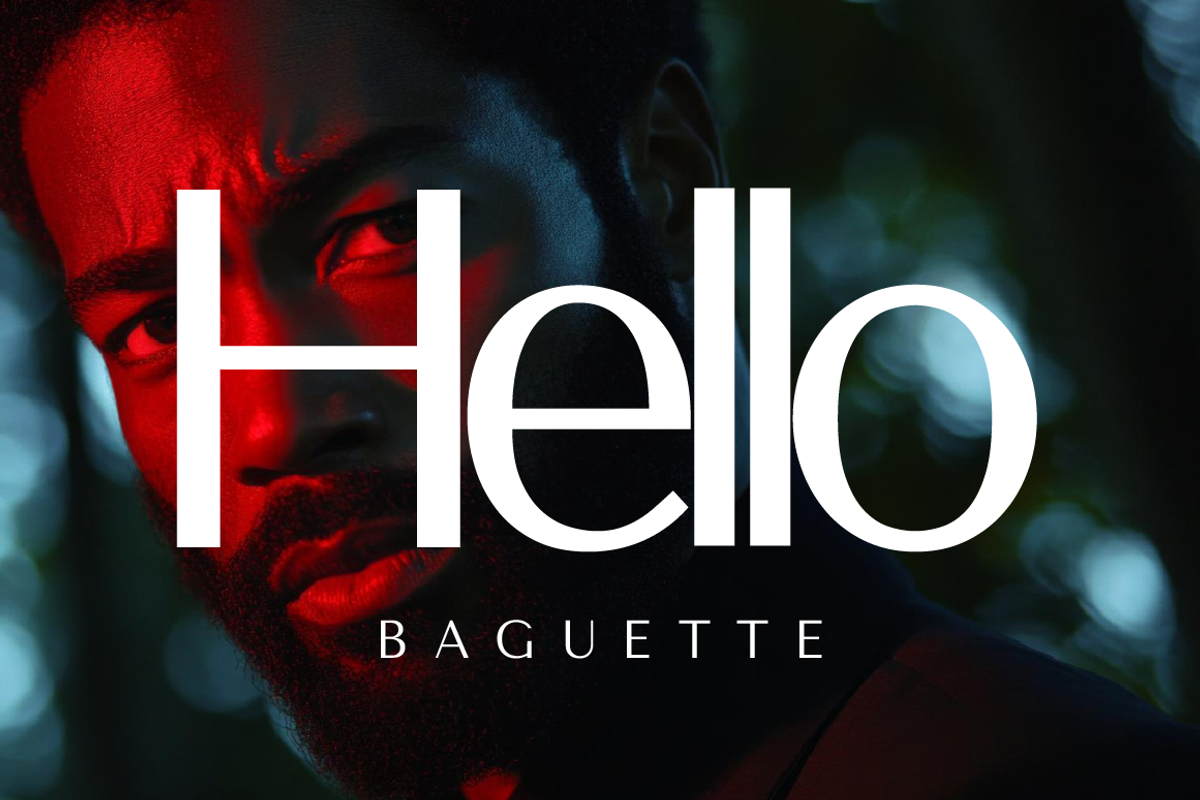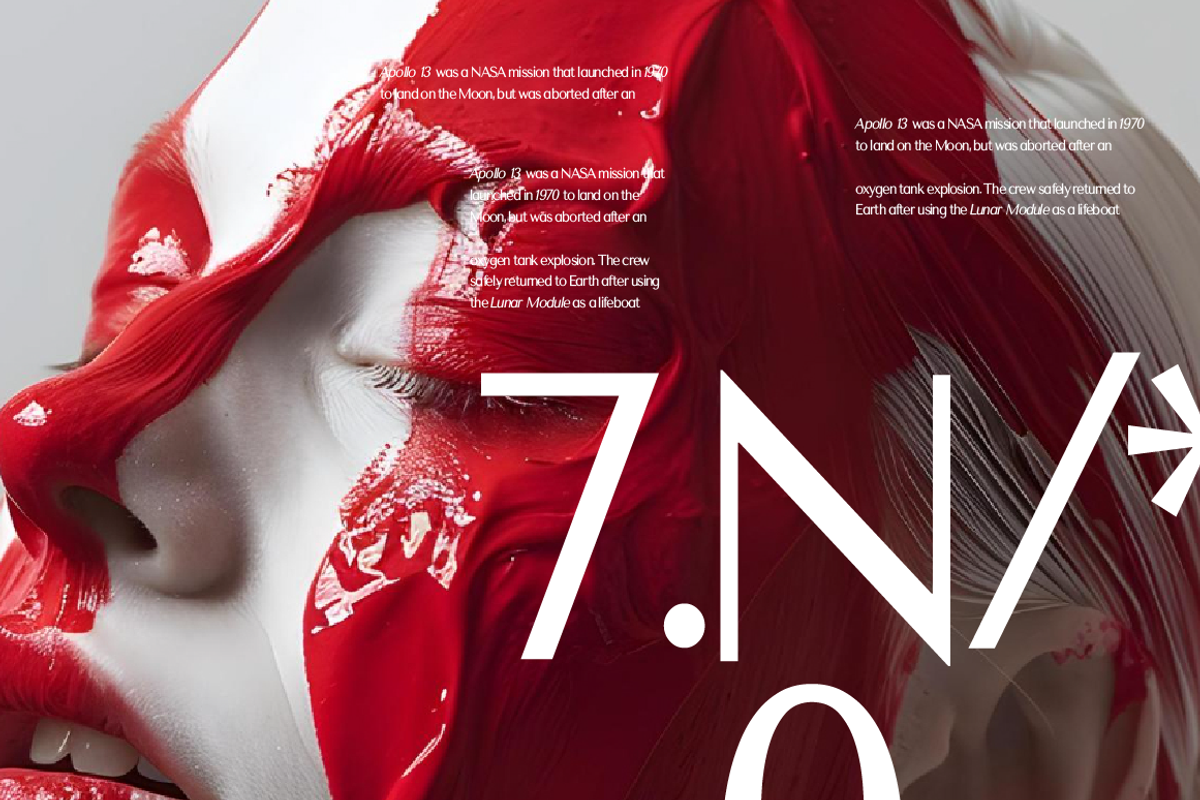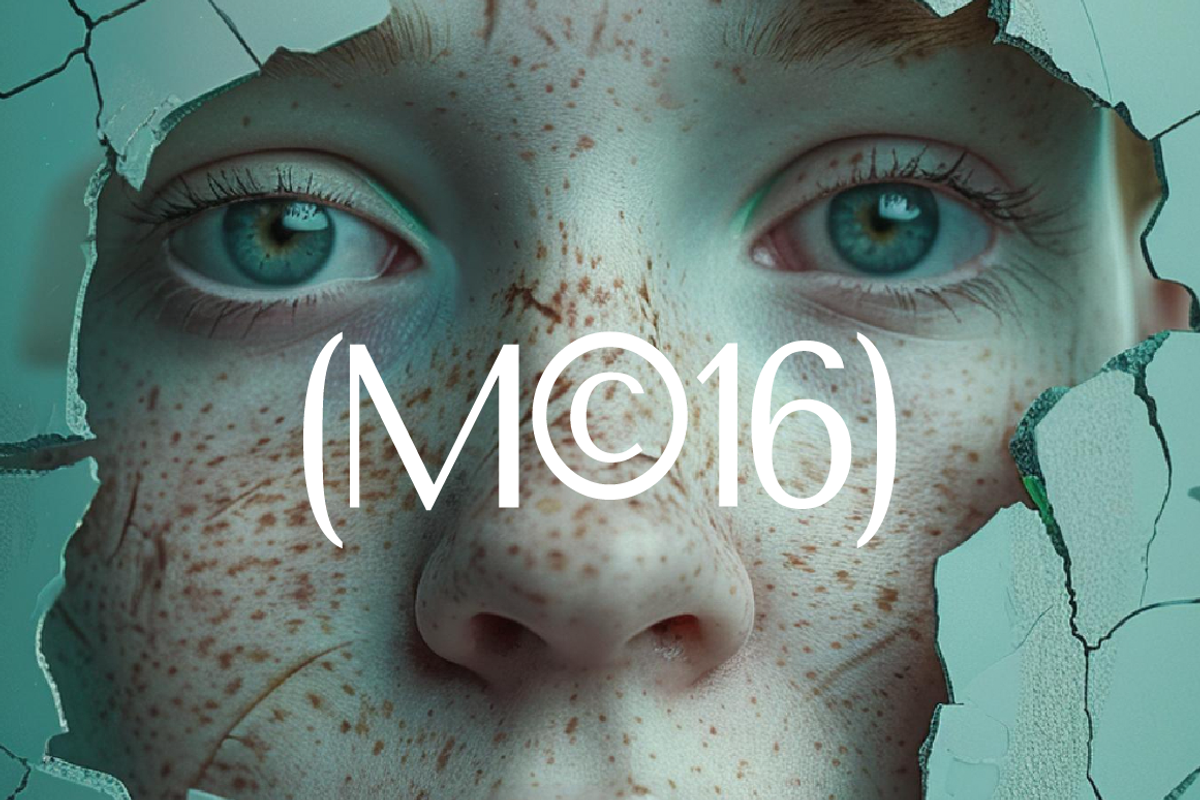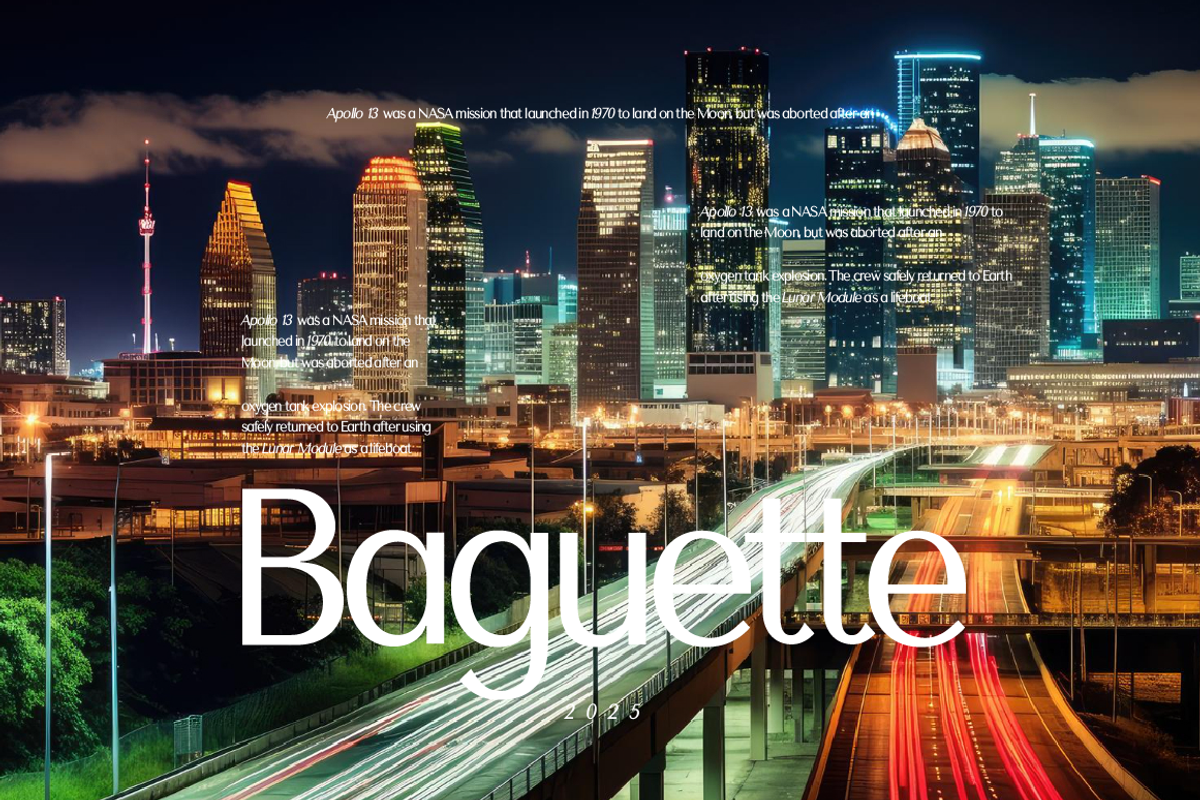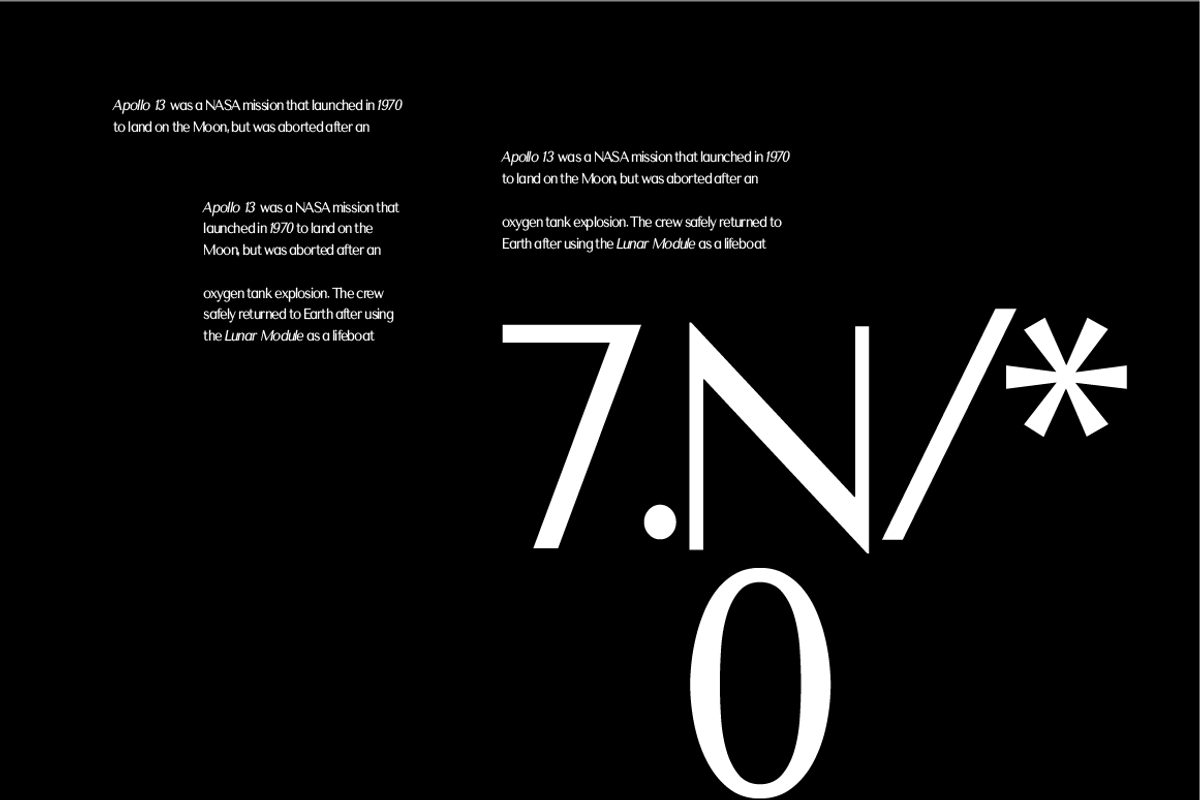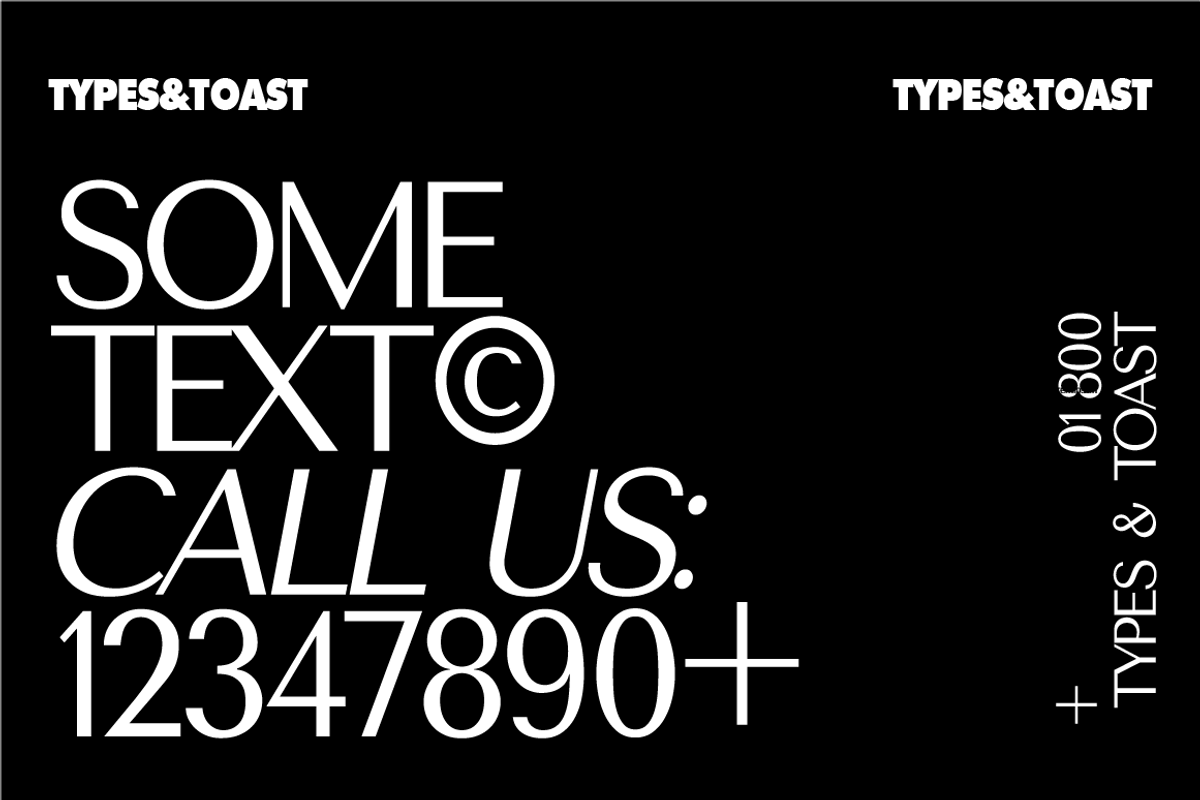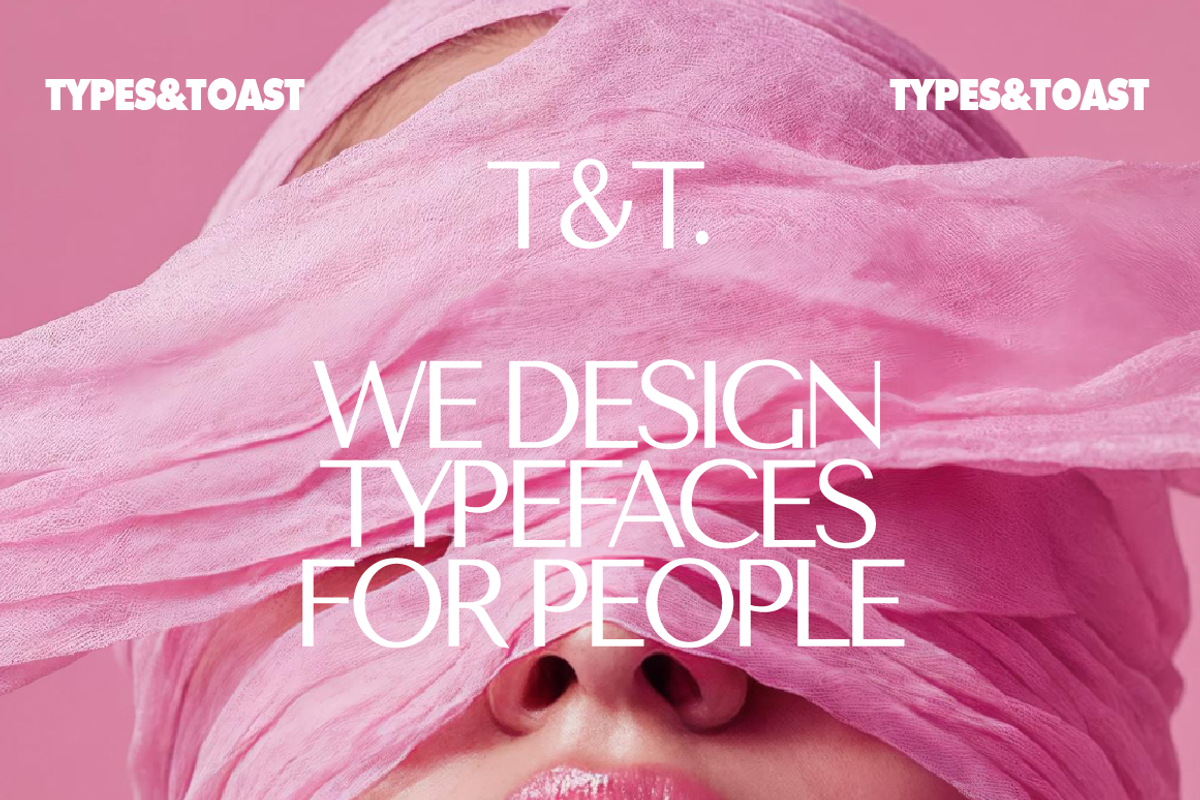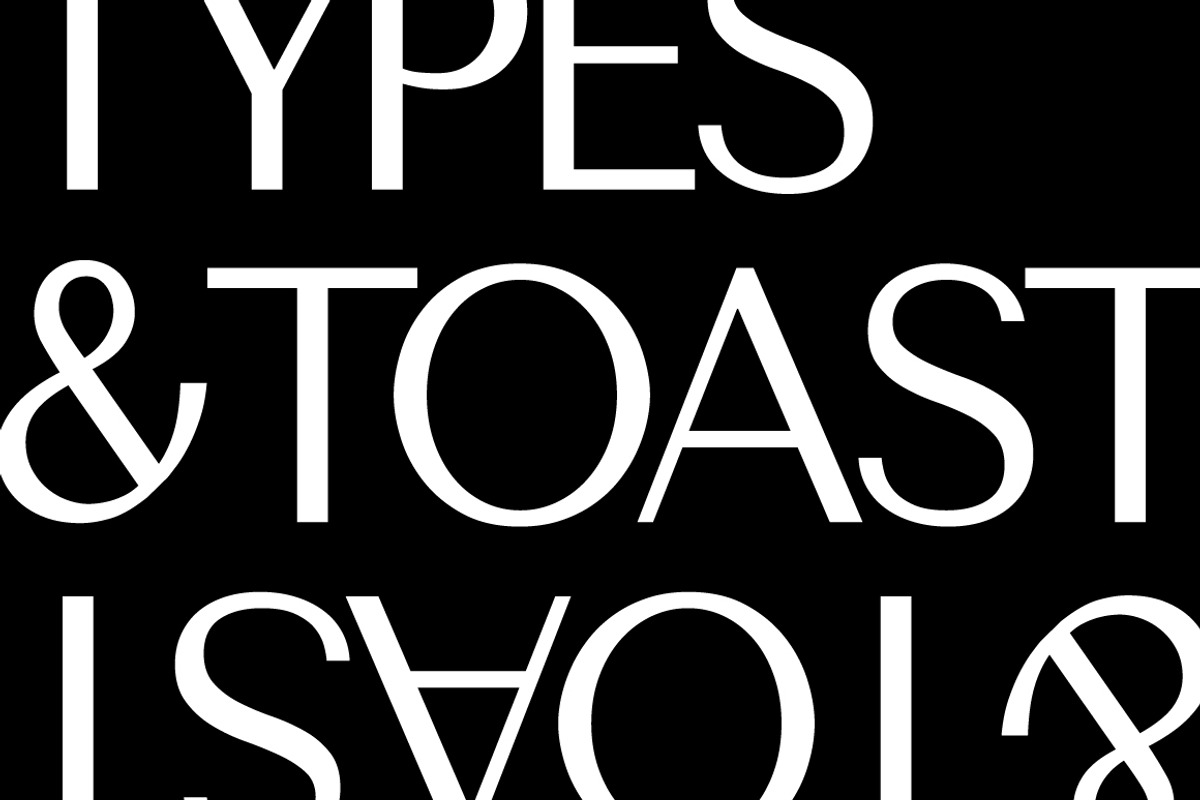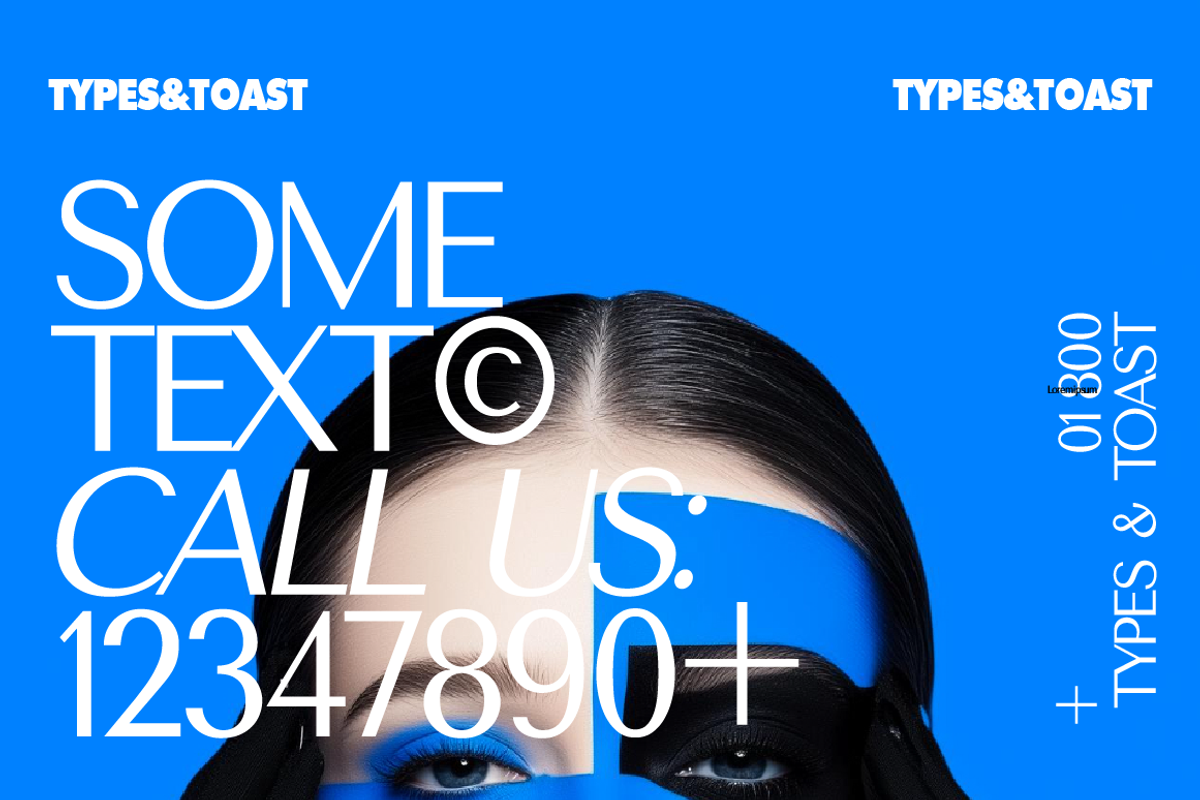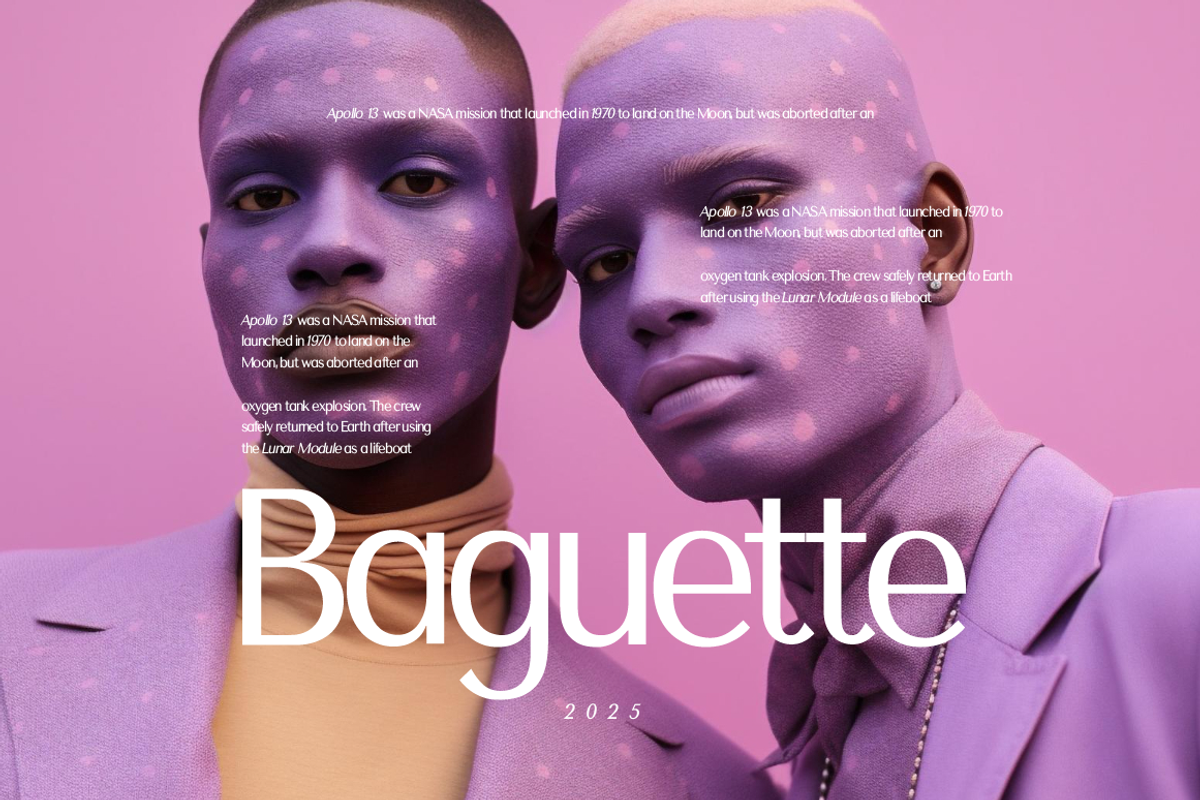
BAGUETTE Serif Font
Introducing BAGUETTE, a remarkable serif font designed to elevate your creative projects. Born from a simple concept—a sketch on a humble napkin—BAGUETTE has grown into an exquisite blend of elegance, versatility, and timeless sophistication.
With its clean lines and dynamic style, this font seamlessly combines classic charm with a modern edge, making it the perfect choice for designers looking to make an unforgettable statement. Whether you’re working on logotypes, social media content, or editorial layouts, BAGUETTE adds a touch of refinement and creativity to every design.
Brand identity: Create stunning logos that exude professionalism and style. Social media design: Elevate your posts and stories with a sleek, polished look. Editorial projects: Add a timeless elegance to magazines, books, and more. Dare to design with confidence. Let BAGUETTE bring your creative vision to life.